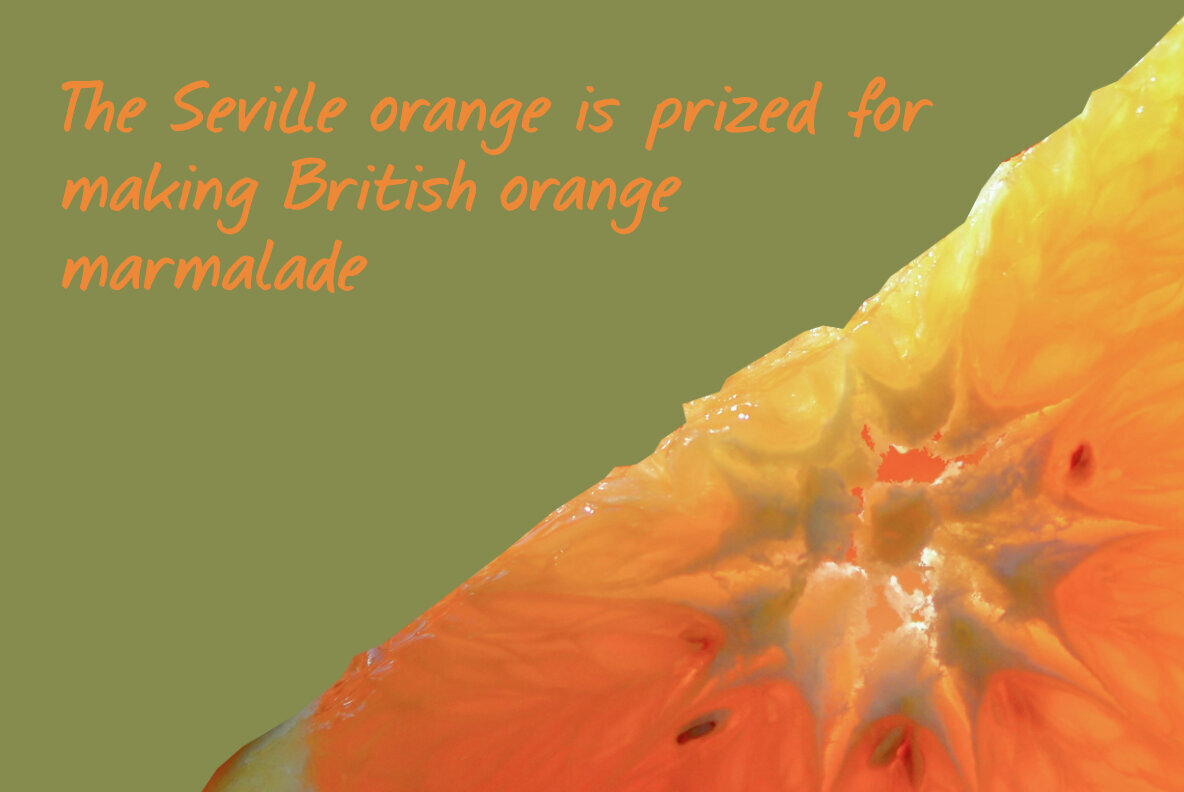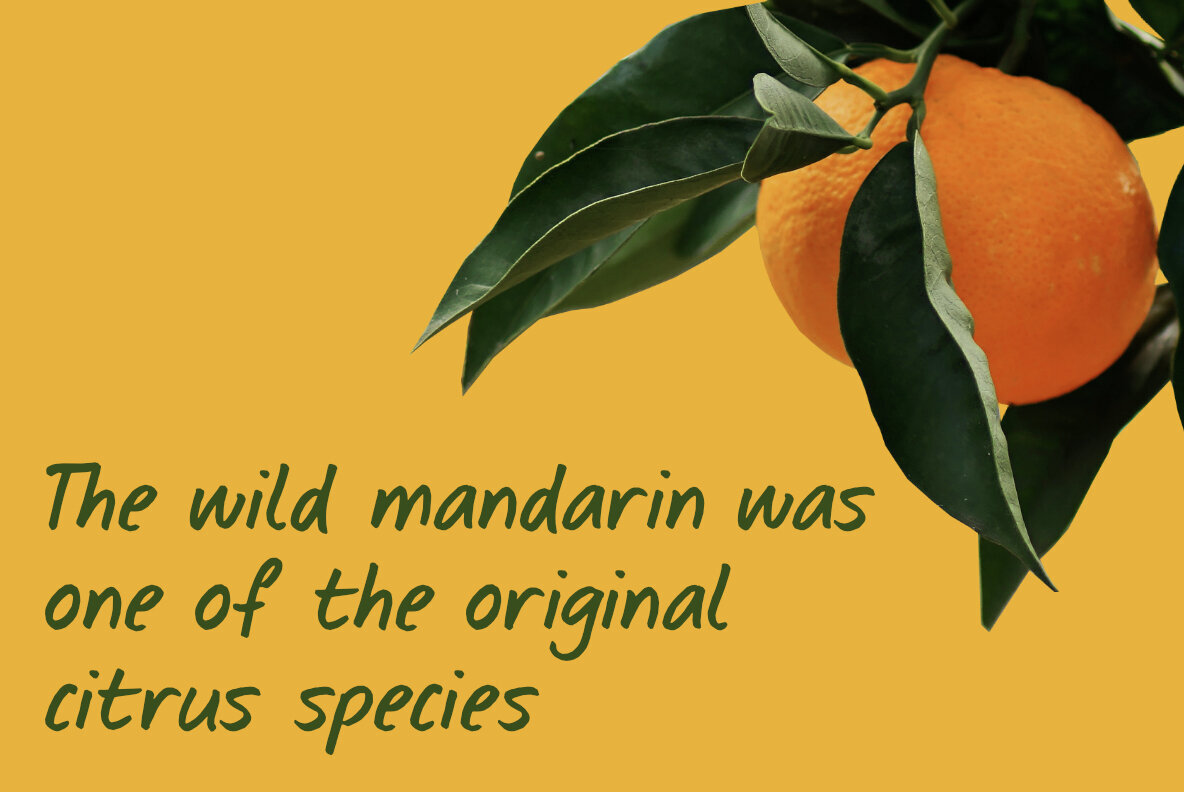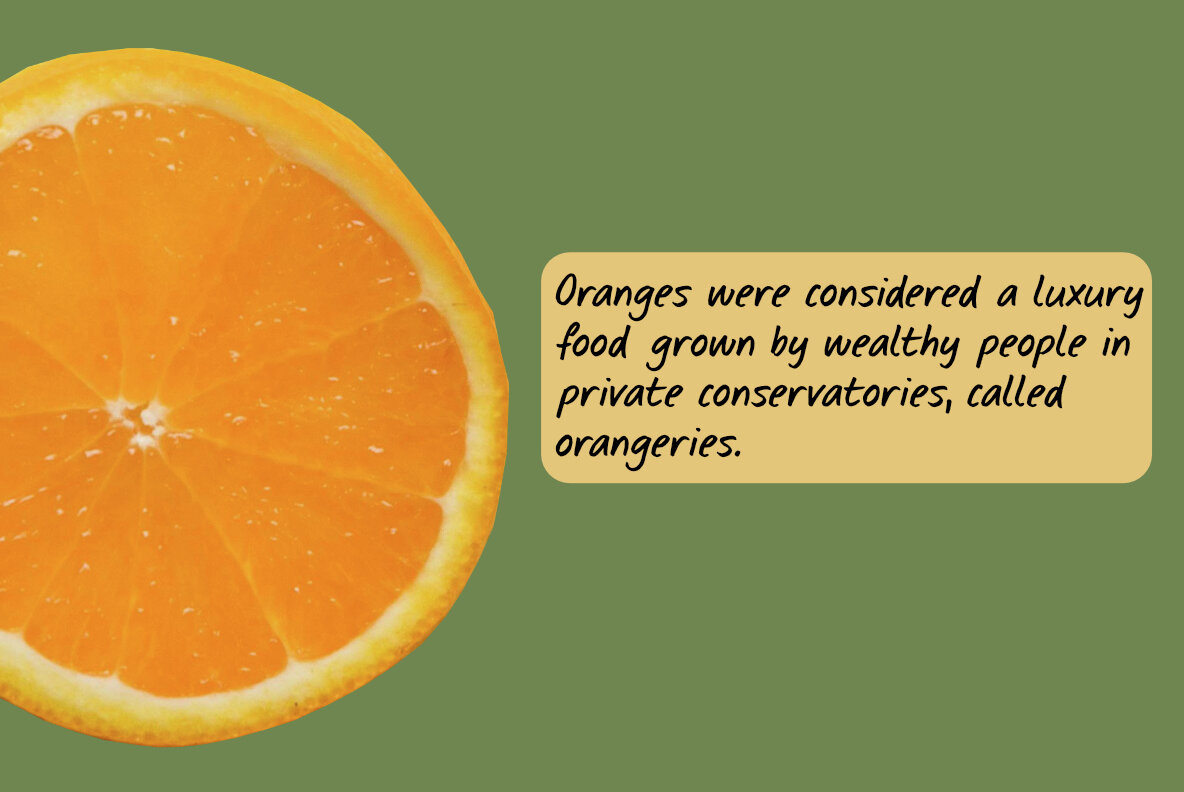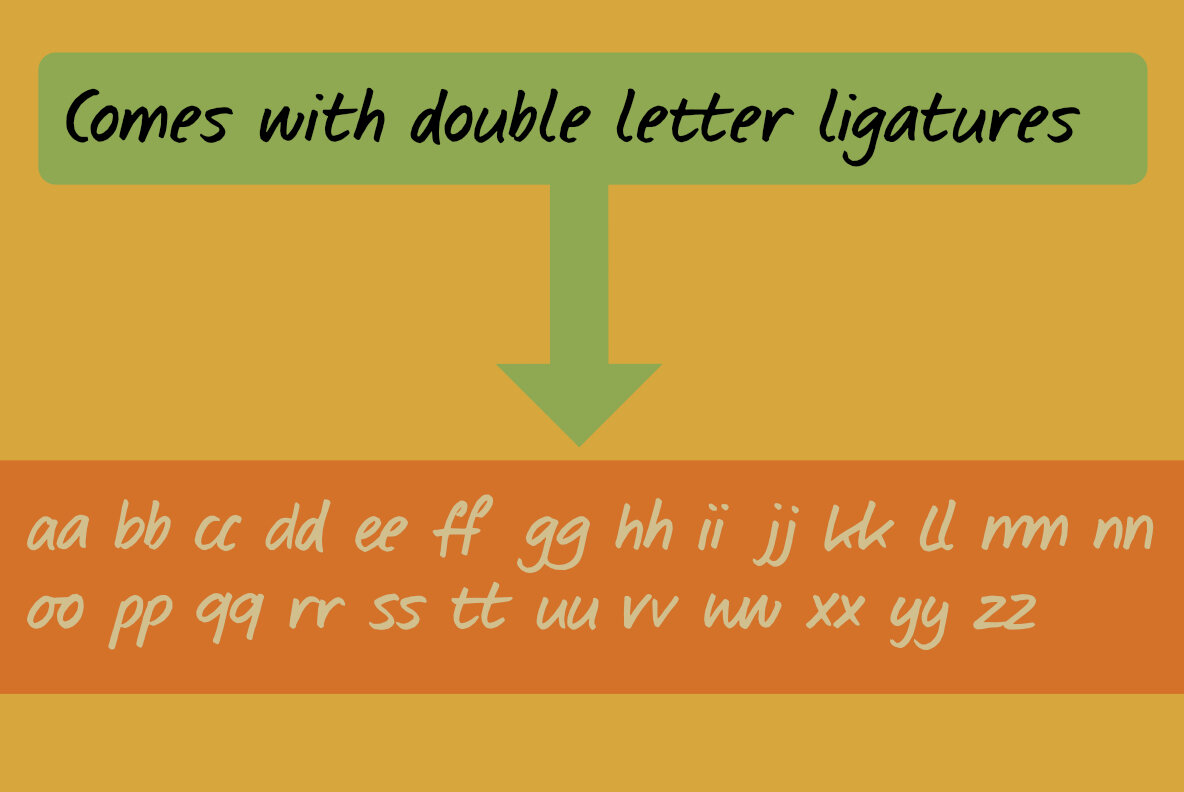
Seville Orange Font
Seville Orange invites you to explore the charm of handwritten typography. Inspired by the elusive yet distinct flavor of Seville oranges, this font captures an authentic, handcrafted essence. Developed using a marker pen on rough paper, Seville Orange features a natural, textured appearance that adds unique character to any design project.
This font boasts a comprehensive set of double letter ligatures, ensuring fluidity and seamlessness throughout your text. Additionally, Seville Orange provides extensive language support, making it versatile for diverse design applications. Perfect for capturing a rustic touch or adding a personal twist to your creative projects, Seville Orange brings a playful yet sophisticated feel that graphic and digital designers will find refreshing.